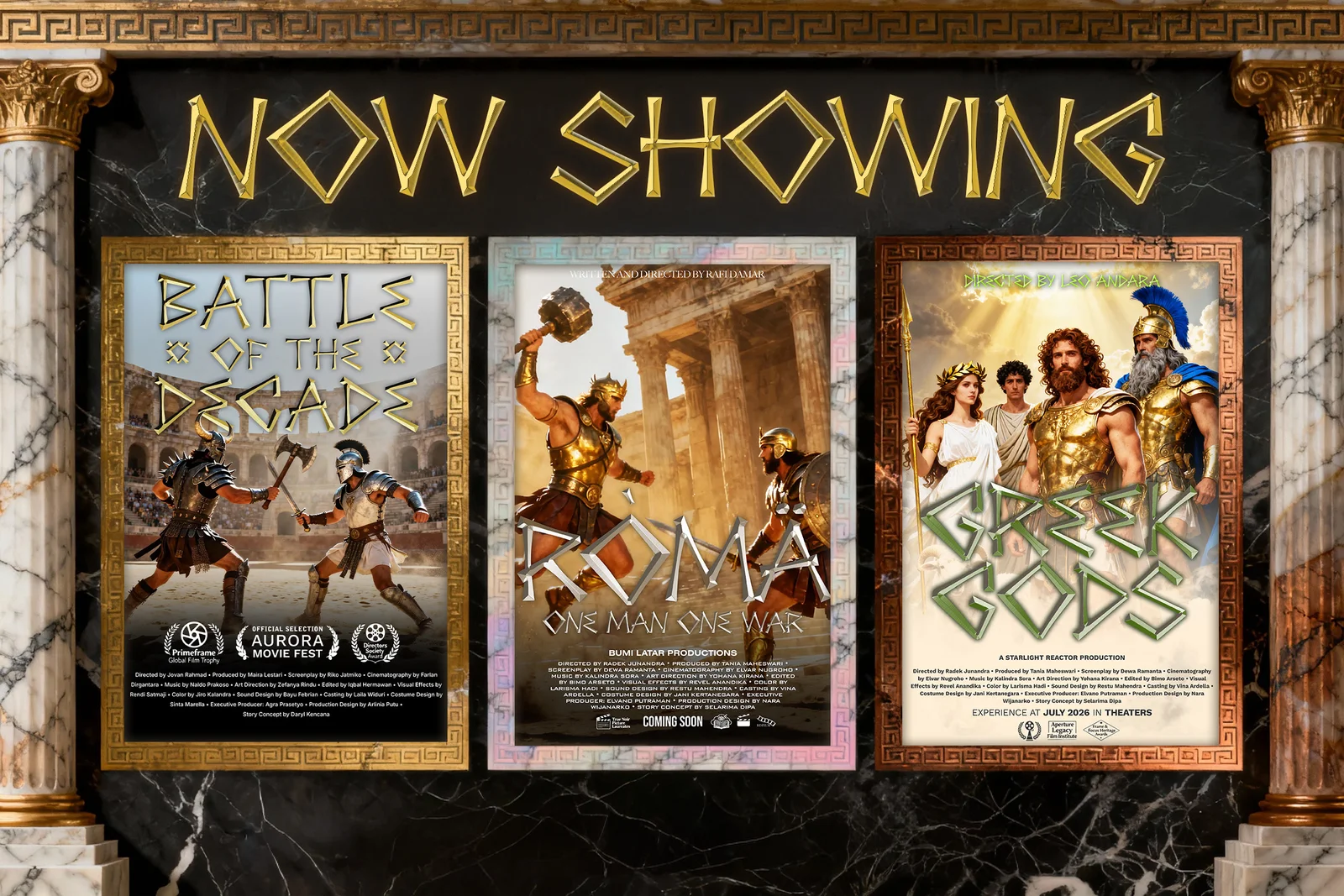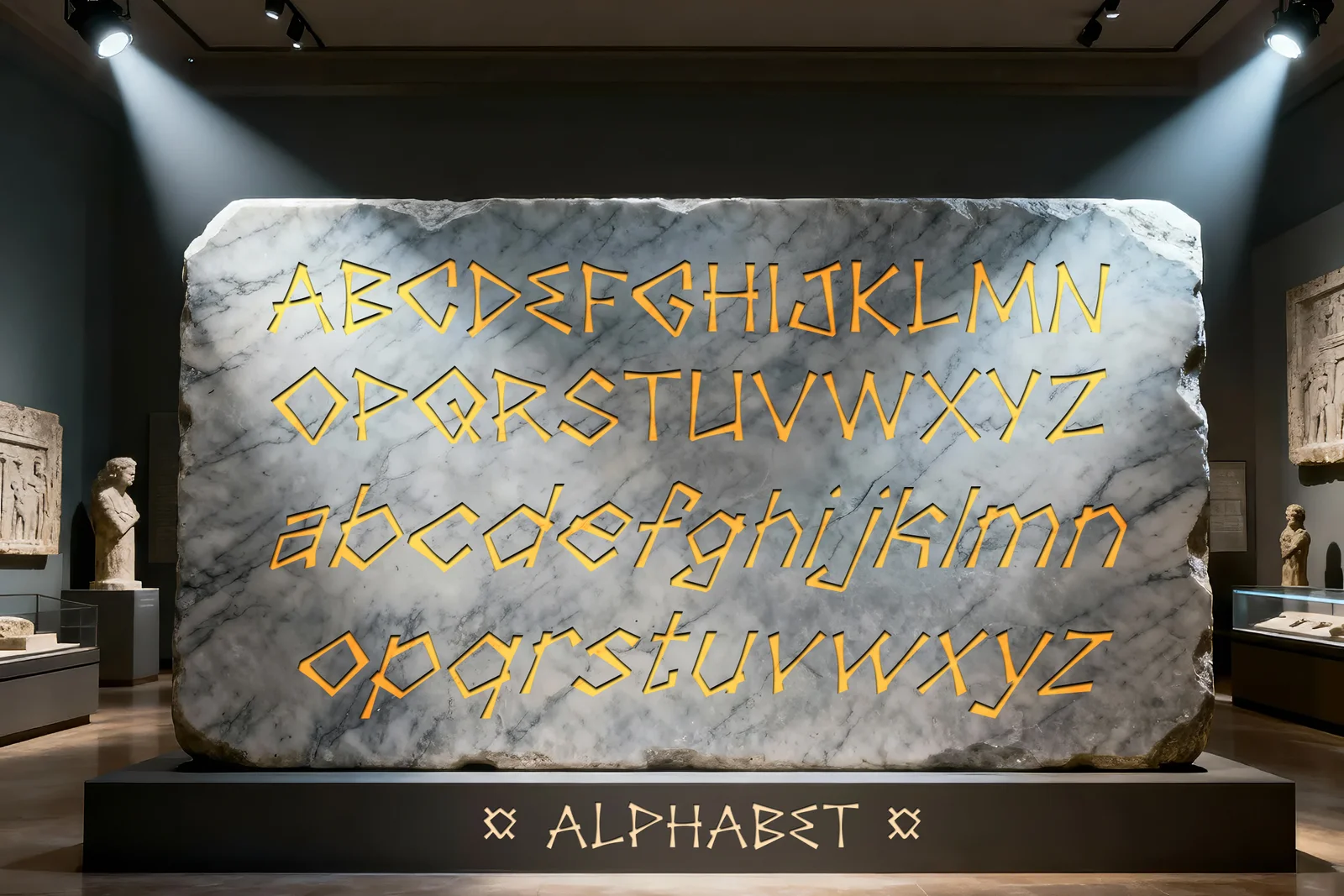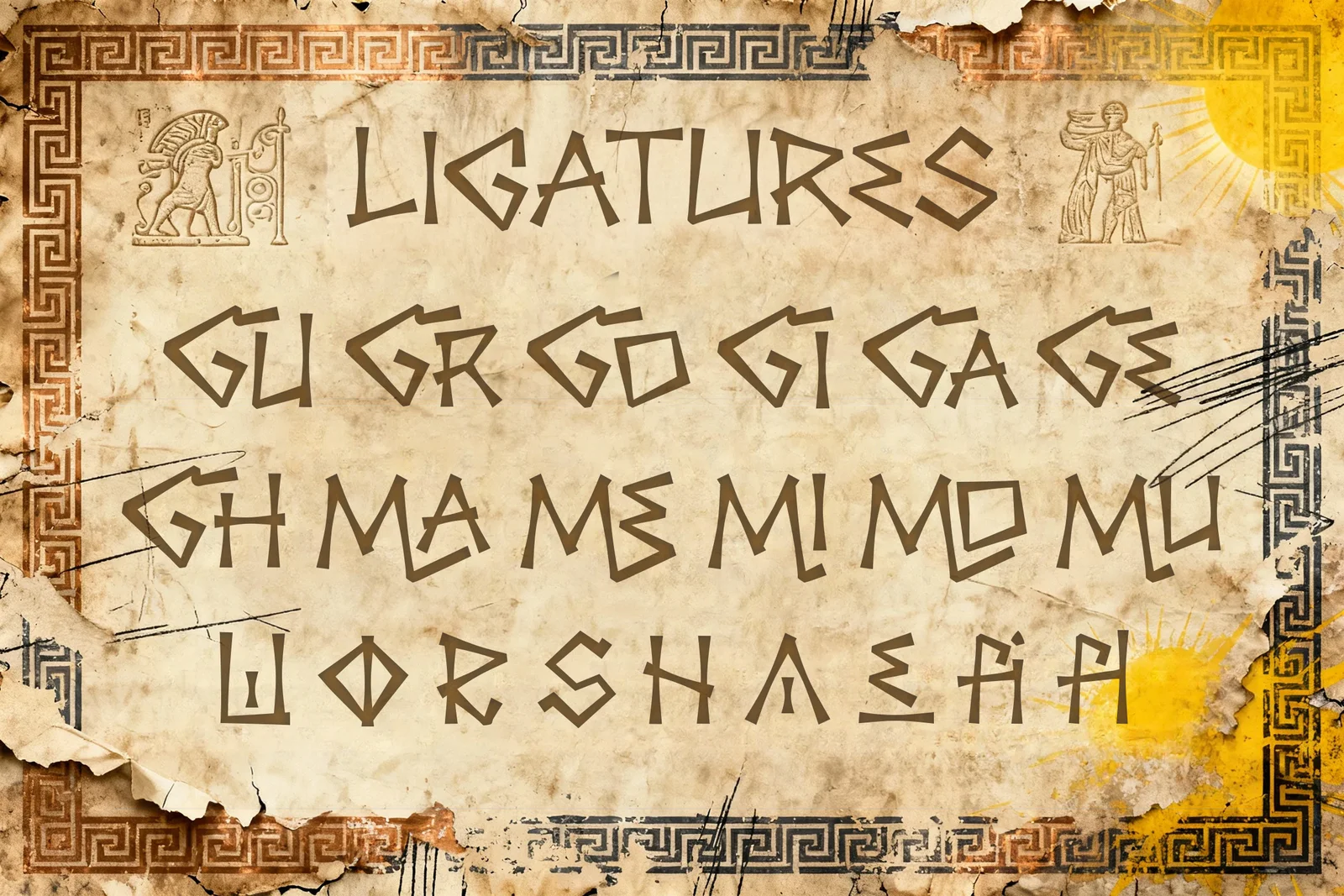
Morgeon Hermes Font
Morgeon Hermes is a striking mythological display font designed to capture the timeless strength and mystique of ancient civilizations. Each letter is sculpted with sharp, chiseled edges reminiscent of carved stone monuments, temple engravings, and classical Greek artistry.
This bold stylistic approach gives the typeface an authentic legendary feel powerful, ceremonial, and visually commanding. Created for cinematic compositions, animated storytelling, fantasy realms, and immersive gaming experiences, Morgeon Hermes brings dramatic atmosphere and ancient-world energy to any project.